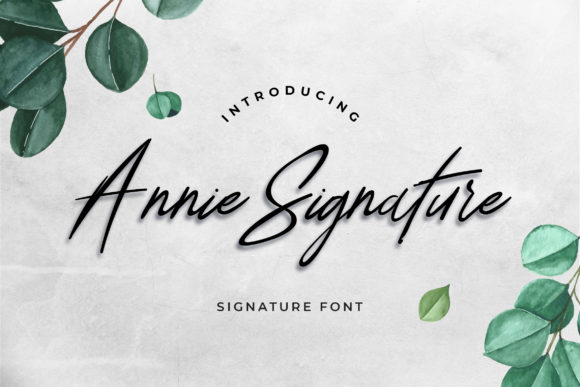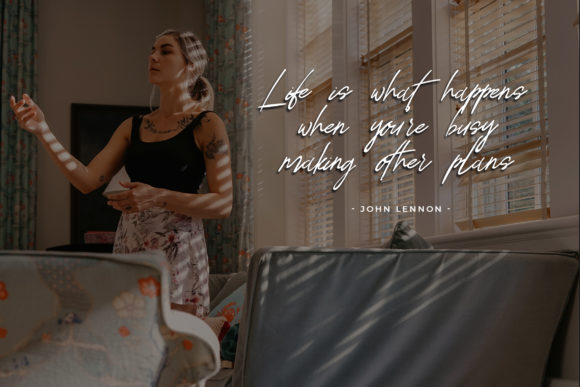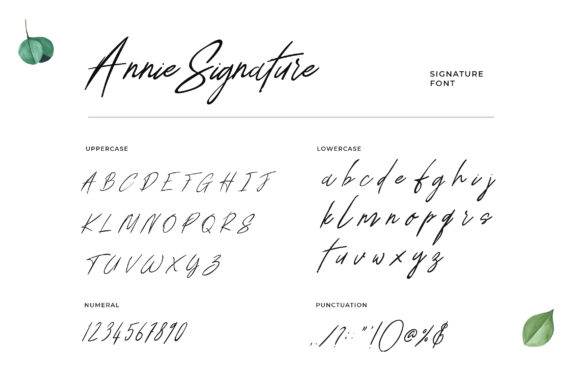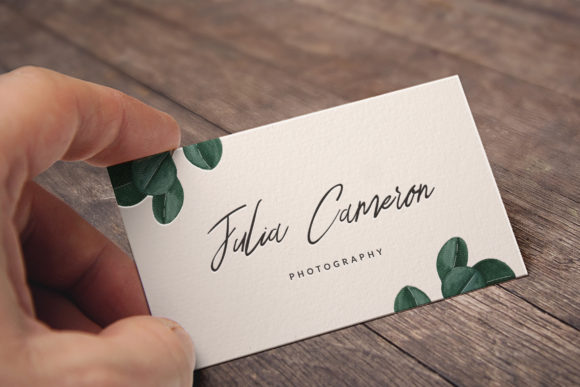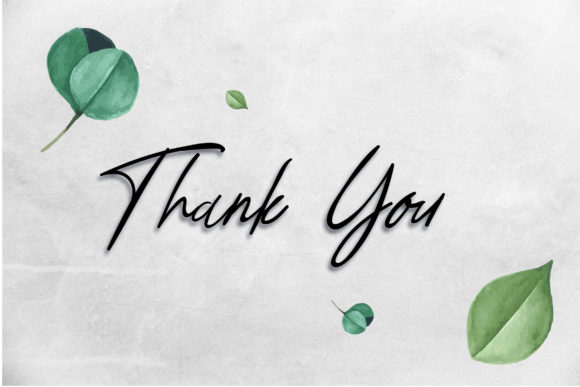
Annie Signature Font
About Annie Signature Font
“Annie Signature” sounds like a relaxed and fashionable script font that exudes style and trendiness. With its laid-back vibe, this font is a versatile choice for a wide range of design ideas, suitable for both formal and informal contexts.
By using “Annie Signature” in your designs, you can achieve a sense of ease and fashion-forwardness. Its script style adds a touch of elegance and fluidity, making your creations feel more refined and captivating.
This font’s trendy and relaxed nature makes it suitable for various design applications. Whether you’re working on logos, branding, social media graphics, invitations, or any other project, “Annie Signature” can effortlessly enhance the visual appeal and create a stylish and modern atmosphere.
With “Annie Signature,” you have a font that offers endless variations, giving you creative freedom to explore its many possibilities and customize it according to your design vision.
Incorporate “Annie Signature” into your designs, and you’ll have fun exploring its beauty and endless variations, making your projects truly exceptional and visually captivating.
While embracing the relaxed and fashionable vibe of “Annie Signature,” remember to maintain readability and legibility, especially for longer texts. Proper spacing and alignment between letters ensure that the text remains clear and easy to read, preserving the font’s overall laid-back and trendy charm.
In conclusion, “Annie Signature” is a relaxed and fashionable script font that offers endless possibilities for your designs. Embrace its style and versatility, and let it be the font that adds ease and elegance to your logos, branding, social media graphics, invitations, and other creative projects. With “Annie Signature,” your designs will exude trendiness and captivate the hearts of your audience, making them truly exceptional and visually captivating.